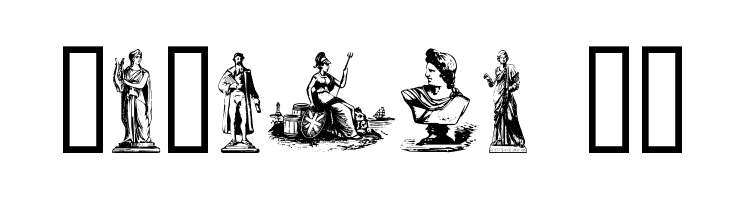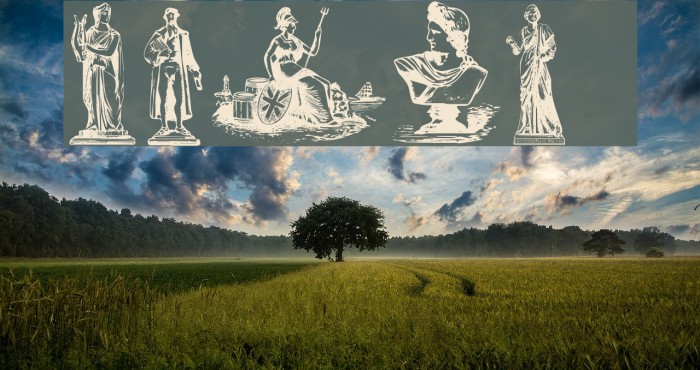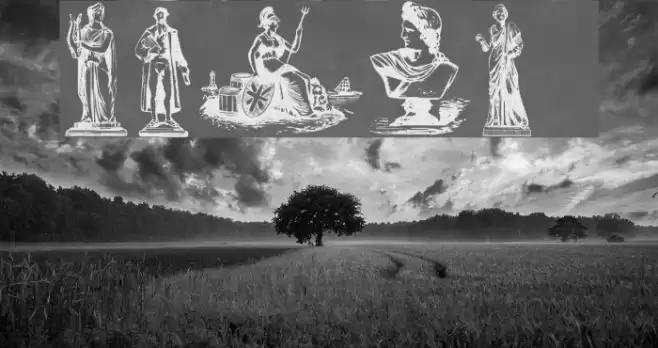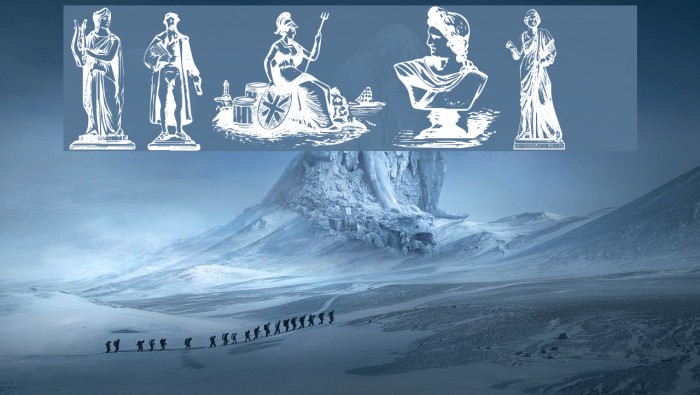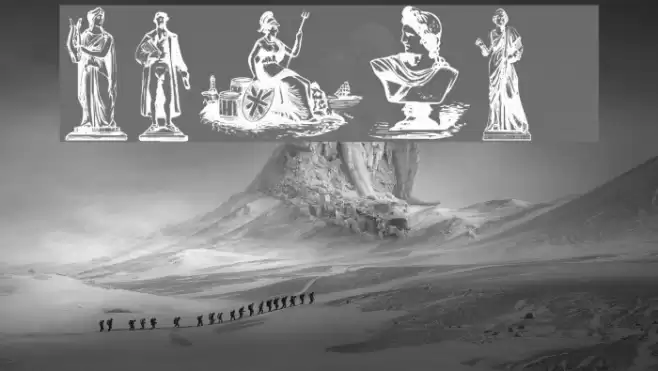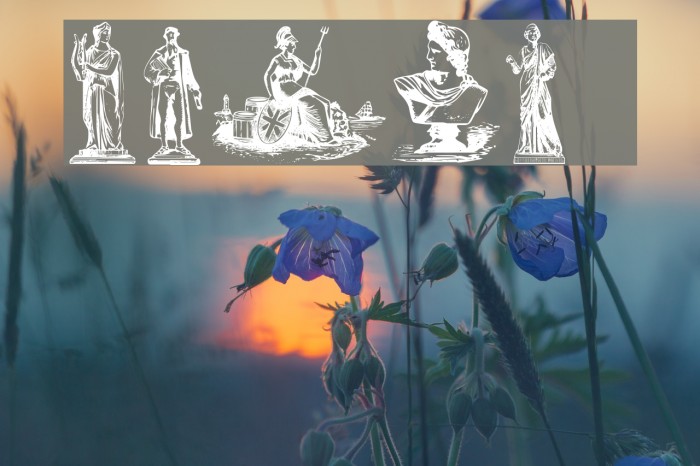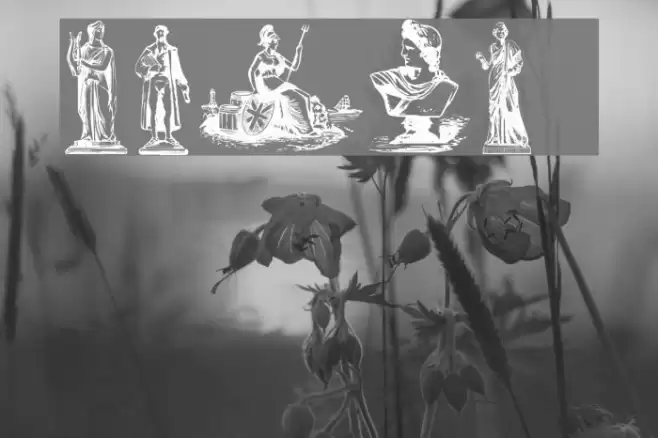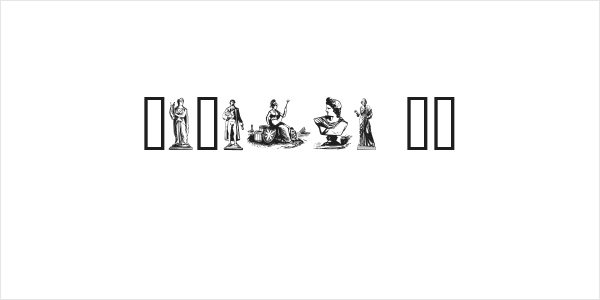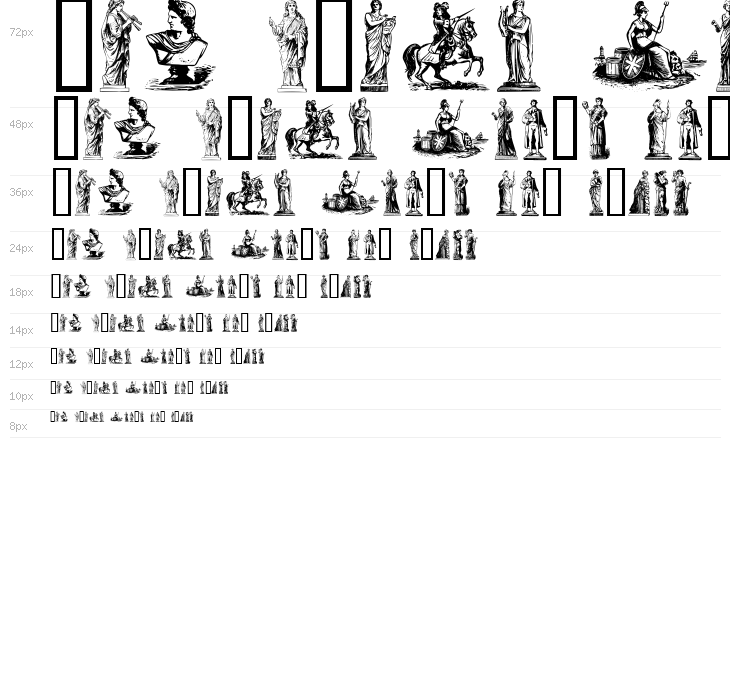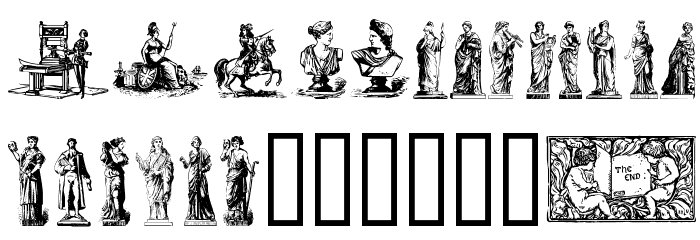
Oktober 98 Font
A decorative display set featuring detailed black-and-white illustrations of classical figures, statues, and ornate scenes, reminiscent of vintage engravings or etchings. The set includes a variety of historical and mythological characters, as well as intricate borders and motifs.
Overall StyleVintage, Decorative, Classical
Use CaseDecorative elements, Illustrative accents, Thematic dividers
Proposed ProjectsBook covers, posters, invitations, historical or educational materials, decorative branding.